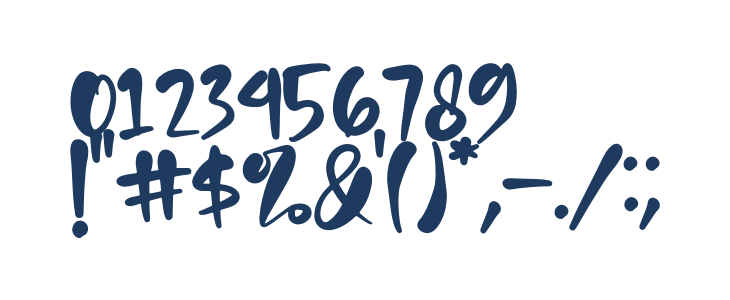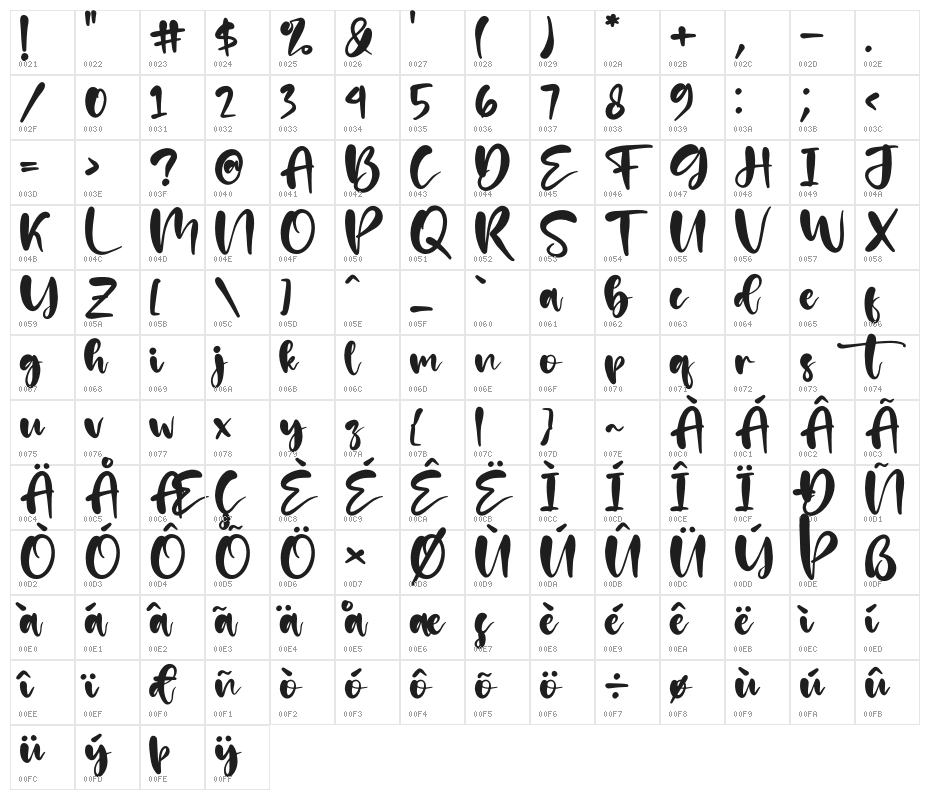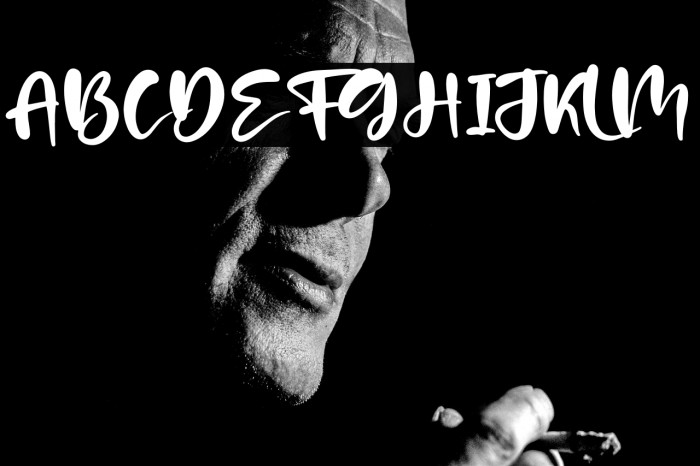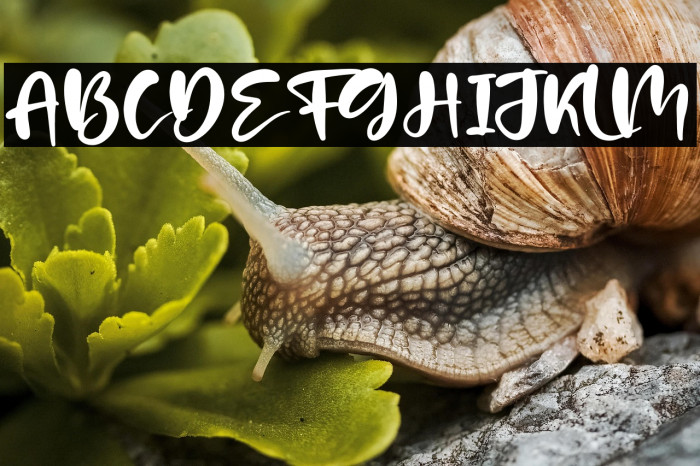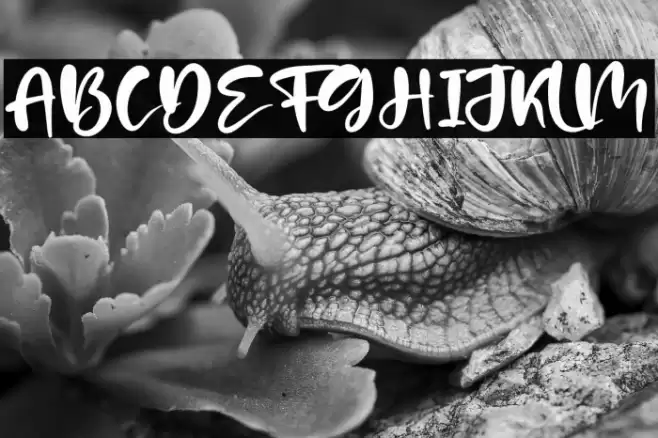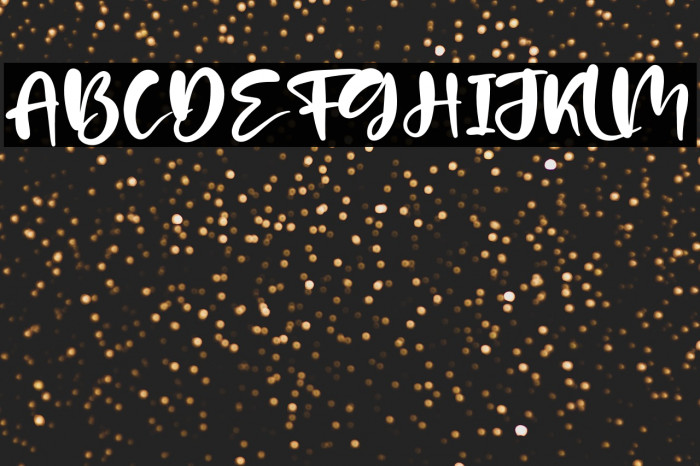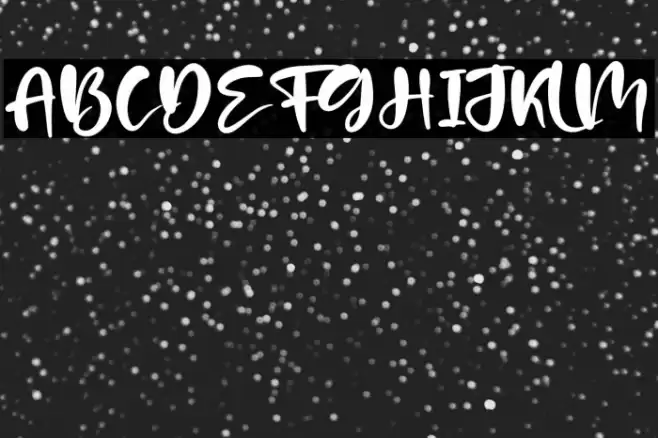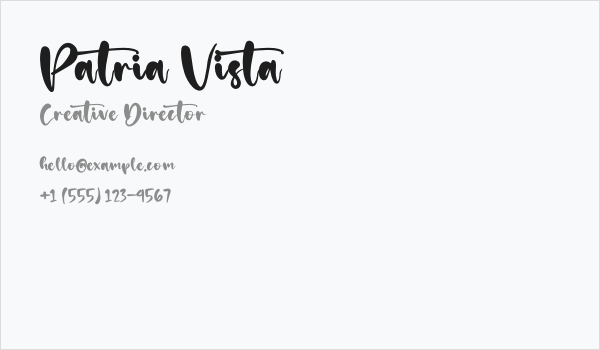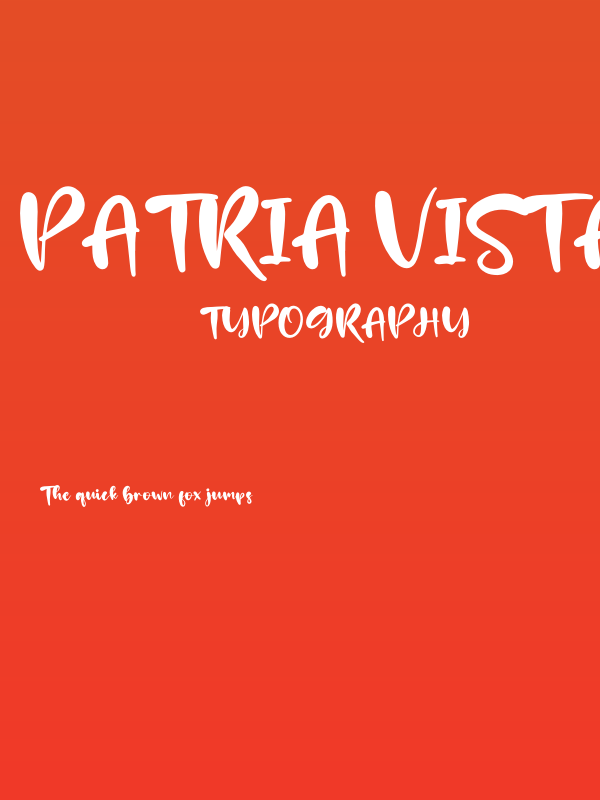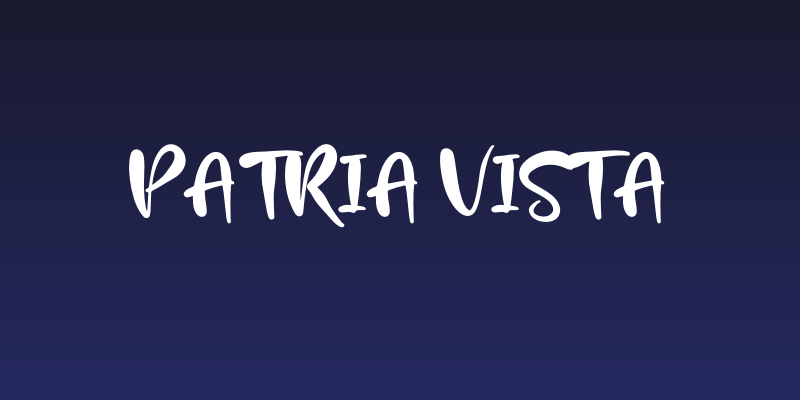
Patria Vista Font
Patria Vista Description
This font exudes a lively and energetic vibe with its bold, brush-like strokes and fluid, cursive style. The uppercase letters are dynamic and expressive, while the lowercase characters maintain a playful yet elegant flow. The numbers and special characters are equally bold, ensuring consistency across all elements. The font's design is reminiscent of modern calligraphy, making it suitable for projects that require a personal touch. Its thick strokes and high contrast between thick and thin lines give it a strong presence, ideal for making statements.
Use CaseLogos, Headlines, Invitations
Proposed ProjectsIdeal for branding, invitations, posters, and social media graphics.